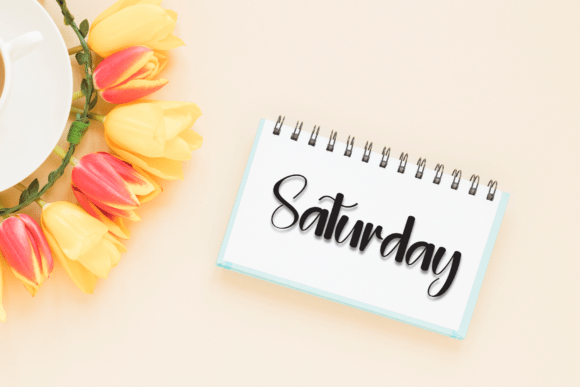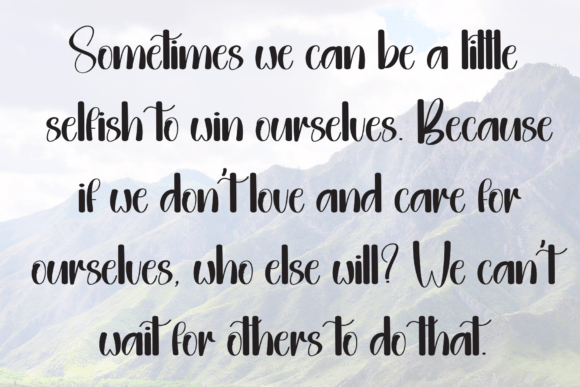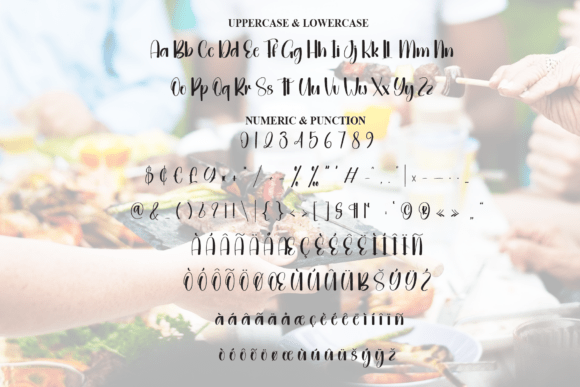
Introduction to Party Barbecue Font
Have you ever been brainstorming ideas for a creative project and stumbled upon a font that instantly sparks inspiration? For many designers, that moment of serendipity can be a game-changer. And for those who’ve discovered the Party Barbecue Font, that magic moment is all too real.
With its charming script handwritten style and effortless elegance, this high-quality font is a design resource that’s hard to resist. Whether you’re working on a logo, wedding invitation, or social media graphic, the Party Barbecue Font brings a personal, heartfelt touch that’s sure to elevate your project. And the best part? It’s available for a free download, making it a valuable addition to any designer’s toolkit.
Key Features of Party Barbecue Font
- High-quality design: This font is perfect for any creative project, offering a unique and eye-catching look.
- Transparent background: The font’s transparent background makes it easy to customize and integrate into any design.
- Large character set: The font includes a wide range of characters, including uppercase and lowercase letters, numbers, and punctuation marks.
- High-resolution design: The font is designed at 300 DPI, making it suitable for use in high-resolution designs, such as posters, flyers, and banners.
- Perfect for party and barbecue themes: The font’s fun and playful design makes it ideal for use in party and barbecue-themed projects, such as invitations, menus, and decorations.
Honest Review: Party Barbecue Font
As a designer, I’m always on the lookout for high-quality design resources that can elevate my creative projects. The Party Barbecue Font caught my attention with its fun, lively vibe, and I was excited to give it a try.
- ✨ The font has a very clear and transparent background, making it easy to overlay on top of images or other design elements.
- ✨ The font comes in a range of weights and styles, giving me plenty of options to customize my designs.
- ⚠️ The font may not be suitable for more formal or professional projects, as it’s a bit too playful for that.
- ⚠️ The font could benefit from a few more characters and punctuation marks to make it more versatile.
Overall, I’m really impressed with the Party Barbecue Font. It’s a great addition to my design resource library, and I can see myself using it for a variety of creative projects. If you’re looking for a fun, high-quality font for your next design project, I’d definitely recommend giving this one a try.
Introduction to Party Barbecue Font
The Party Barbecue Font is a high-quality design resource ideal for creative projects that demand a fun and lively atmosphere. With its transparent background, this font is perfect for designers looking for a versatile and modern look.
Using Party Barbecue Font in Design Software
Tips for Getting the Most Out of Party Barbecue Font
To maximize the effectiveness of the Party Barbecue Font, use it in conjunction with bold colors and creative graphics. This font is particularly well-suited for event invitations, social media graphics, and promotional materials.
The Party Barbecue Font is commonly used in a variety of creative projects, including:
- Event invitations and announcements
- Food and drink menus
- Advertising and promotional materials
Alternatives to Party Barbecue Font
Chango Font
Chango Font is a high-quality, bold font ideal for creative projects that require a fun and energetic feel. It features a transparent background, making it easy to use on any design. Chango Font is perfect for posters, flyers, and social media graphics. When compared to Party Barbecue Font, Chango Font has a more modern and sleek design, making it suitable for a wider range of creative projects.
BBQ Font
BBQ Font is a free download font that is perfect for designers looking for a casual and laid-back feel. It features a bold and playful design, making it ideal for food-related projects, such as restaurant menus and event invitations. BBQ Font is similar to Party Barbecue Font in terms of its casual and fun design, but it has a more limited character set.